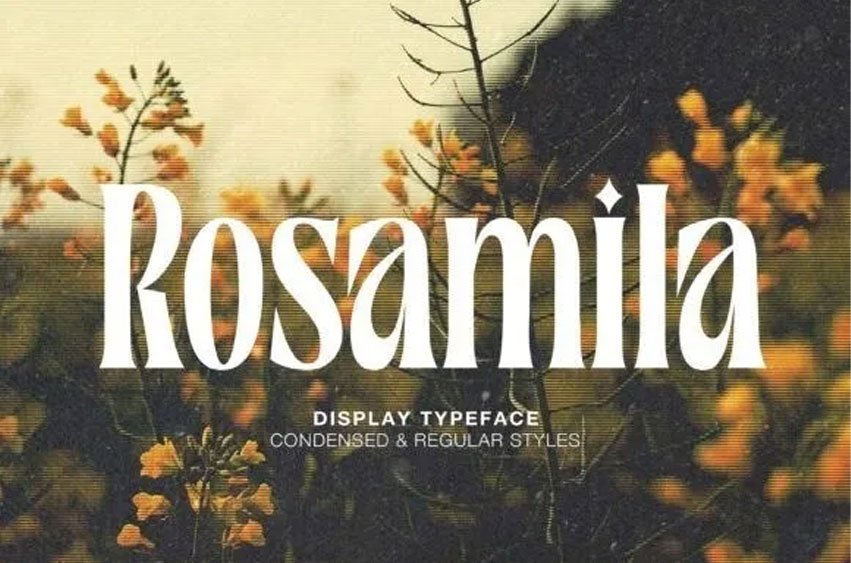
Rosamila Font is a stylish serif with beautiful ligatures. Available in two styles: condensed and regular. all in love with its incredibly versatile style. Use it to create gorgeous wedding invitations, beautiful stationary art, eye-catching social media posts, and much more! To access the Opentype Ligatures you will need software that supports Opentype features in fonts and also PUA unicodes support for other software.